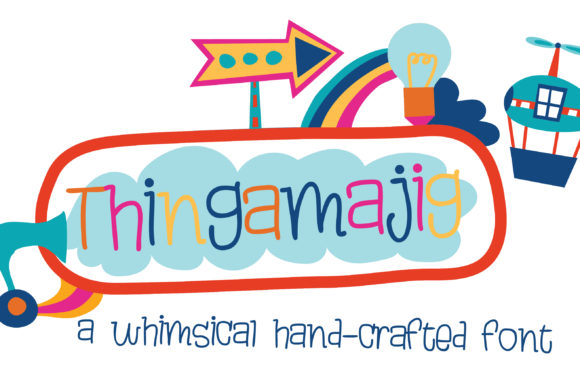
Introducing Thingamajig Font, a captivating hand-crafted sans serif font that exudes a youthful charm, designed by the creative minds at Illustration Ink. This playful and vibrant font is a visual delight, adding a touch of whimsy and personality to your designs. Its unique and eye-catching characters dance across the page, creating a sense of movement and energy.
With Thingamajig Font, your words come alive, captivating your audience and leaving a lasting impression. Its youthful appeal resonates with those who seek a fresh and contemporary touch in their designs. Whether you're creating social media graphics, website content, or printed materials, Thingamajig Font adds a touch of magic that transforms your words into an unforgettable experience.
Step into a world of creativity and imagination with Thingamajig Font. Its playful nature invites you to explore endless possibilities, encouraging you to think outside the box and create designs that stand out from the crowd. Let your imagination run wild as you immerse yourself in the world of Thingamajig Font, where ordinary text becomes an extraordinary visual spectacle.